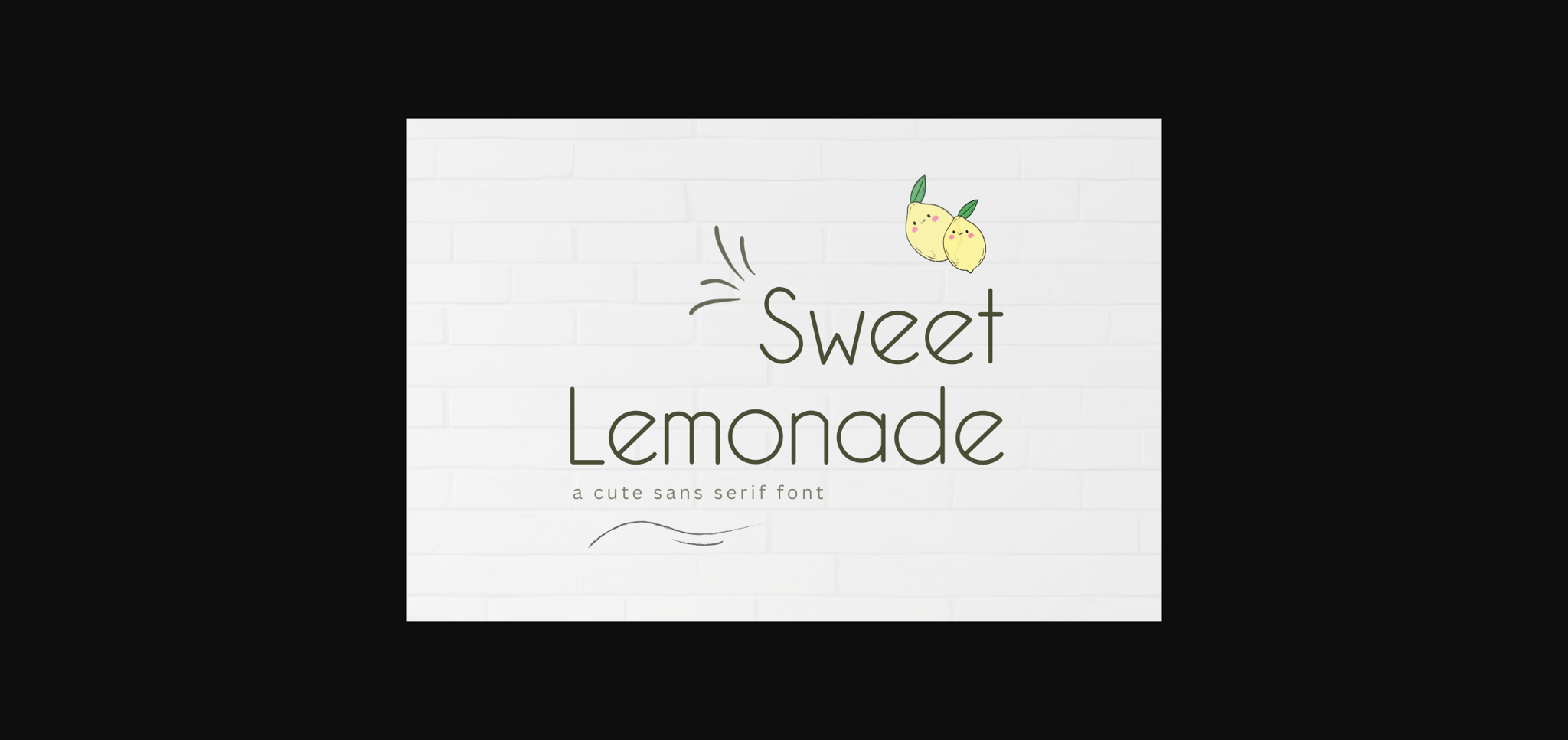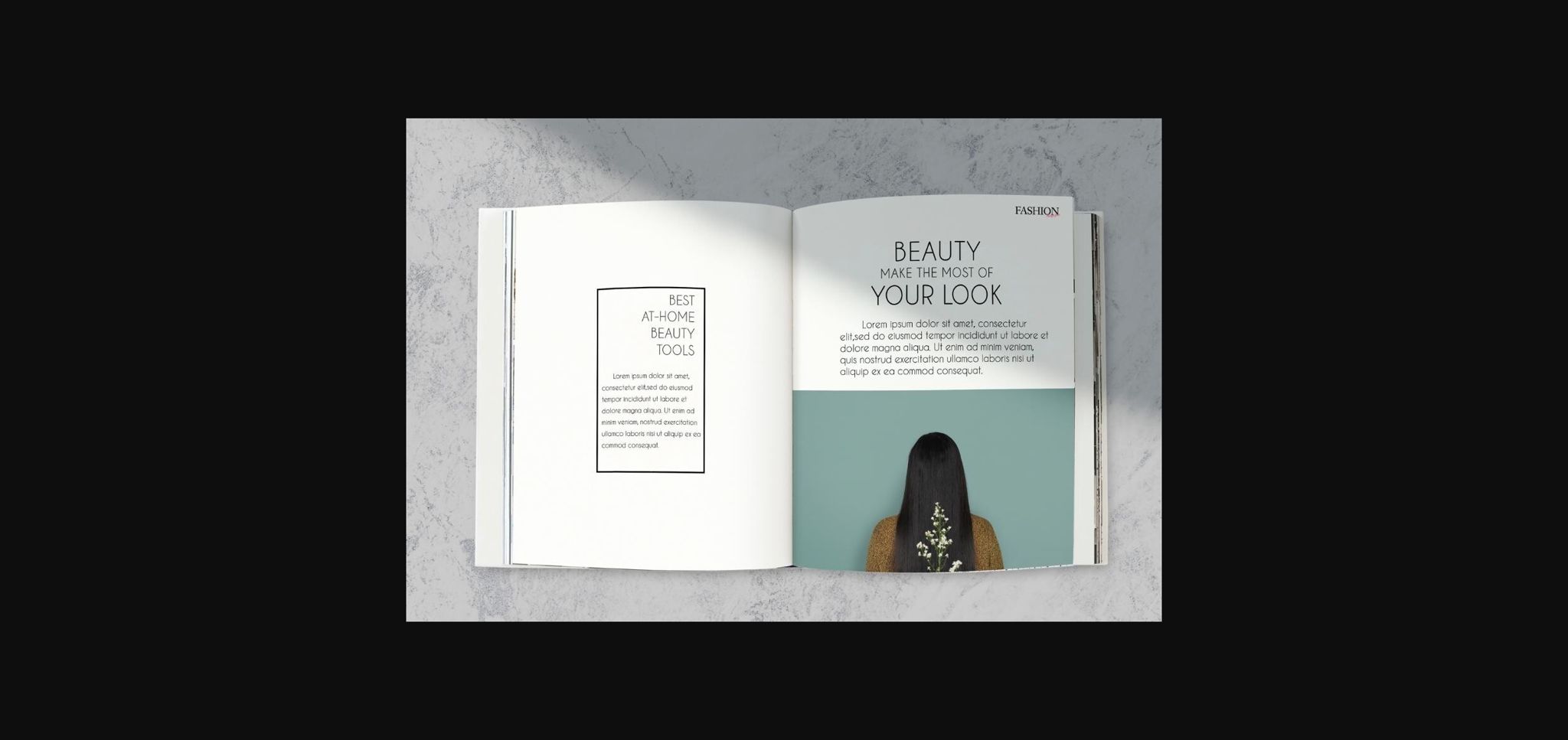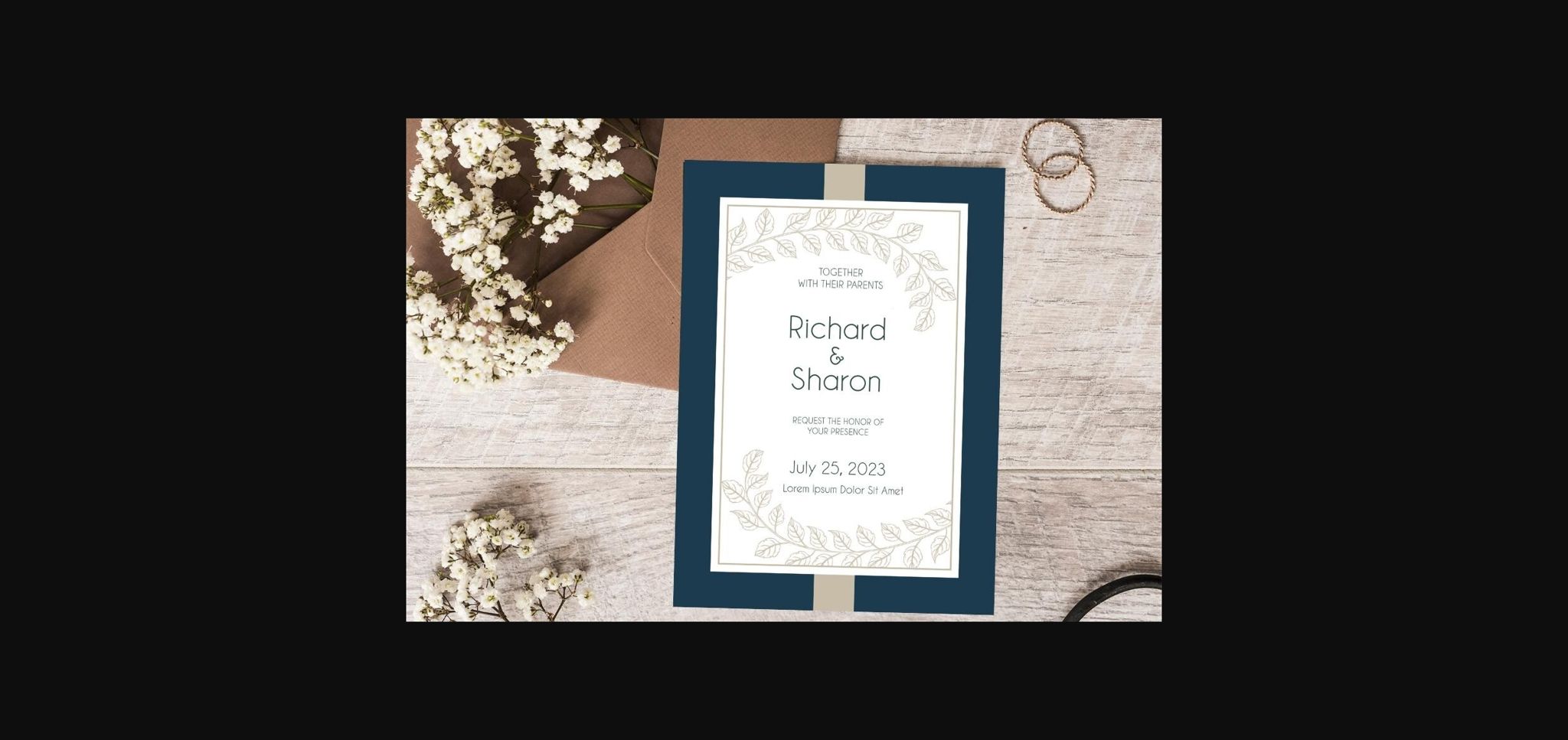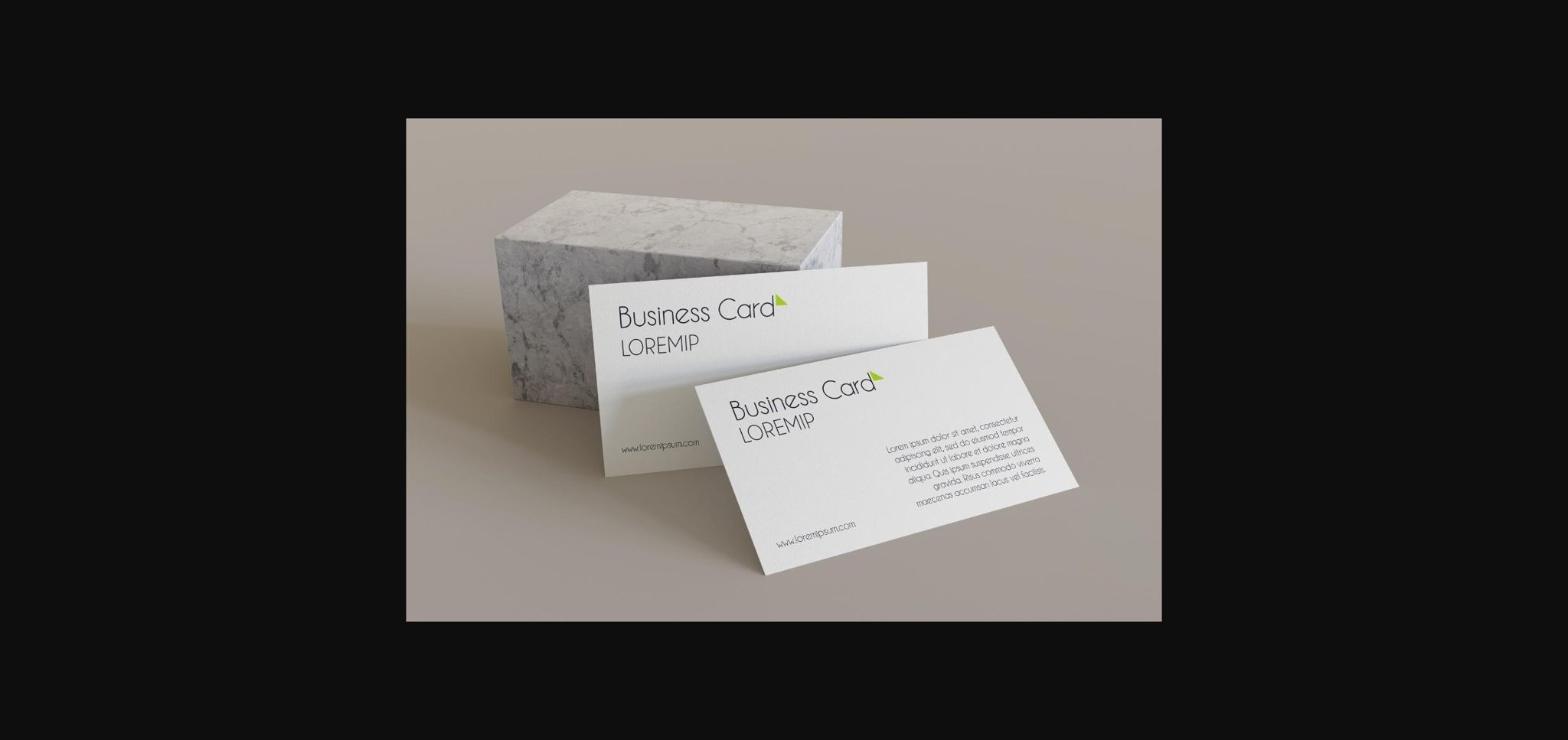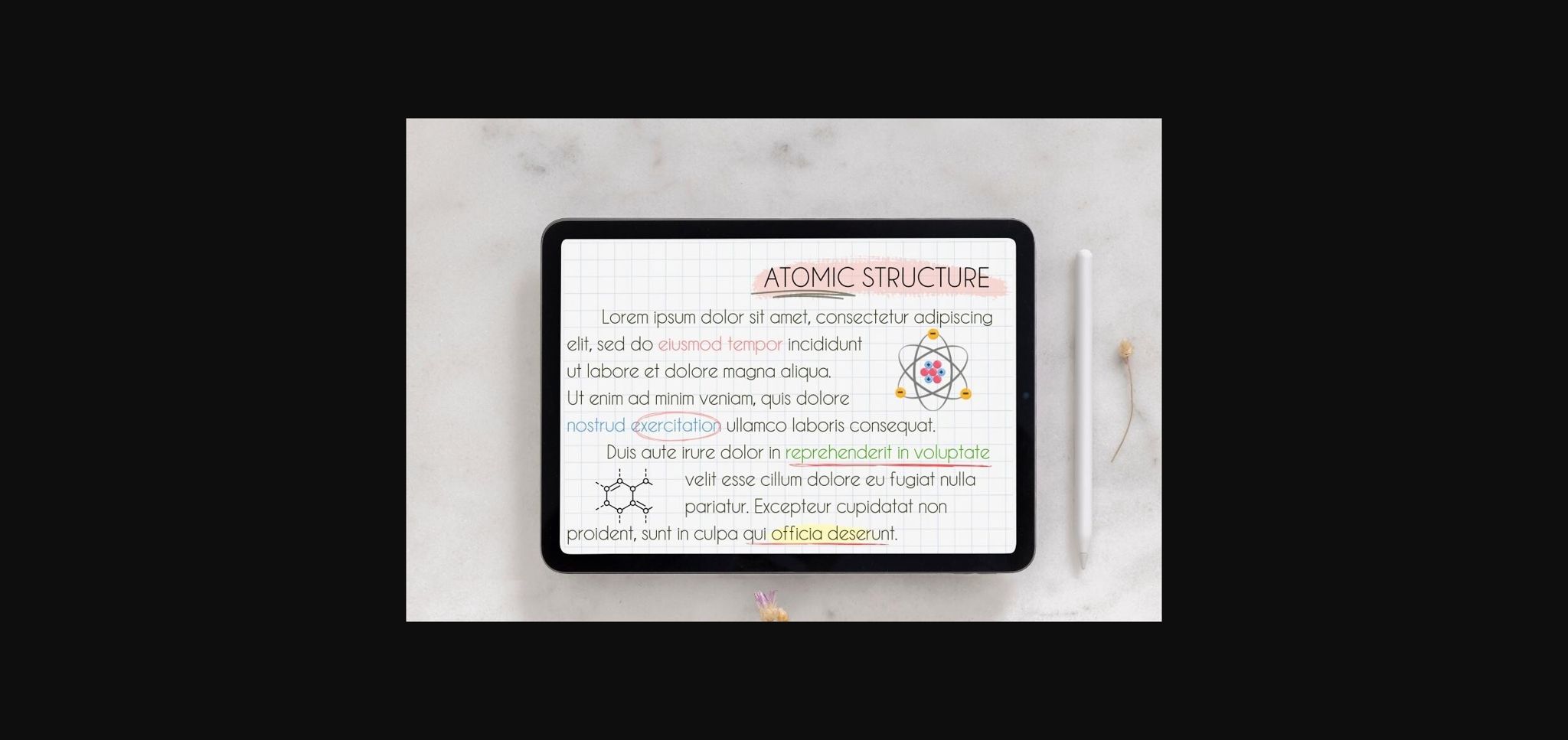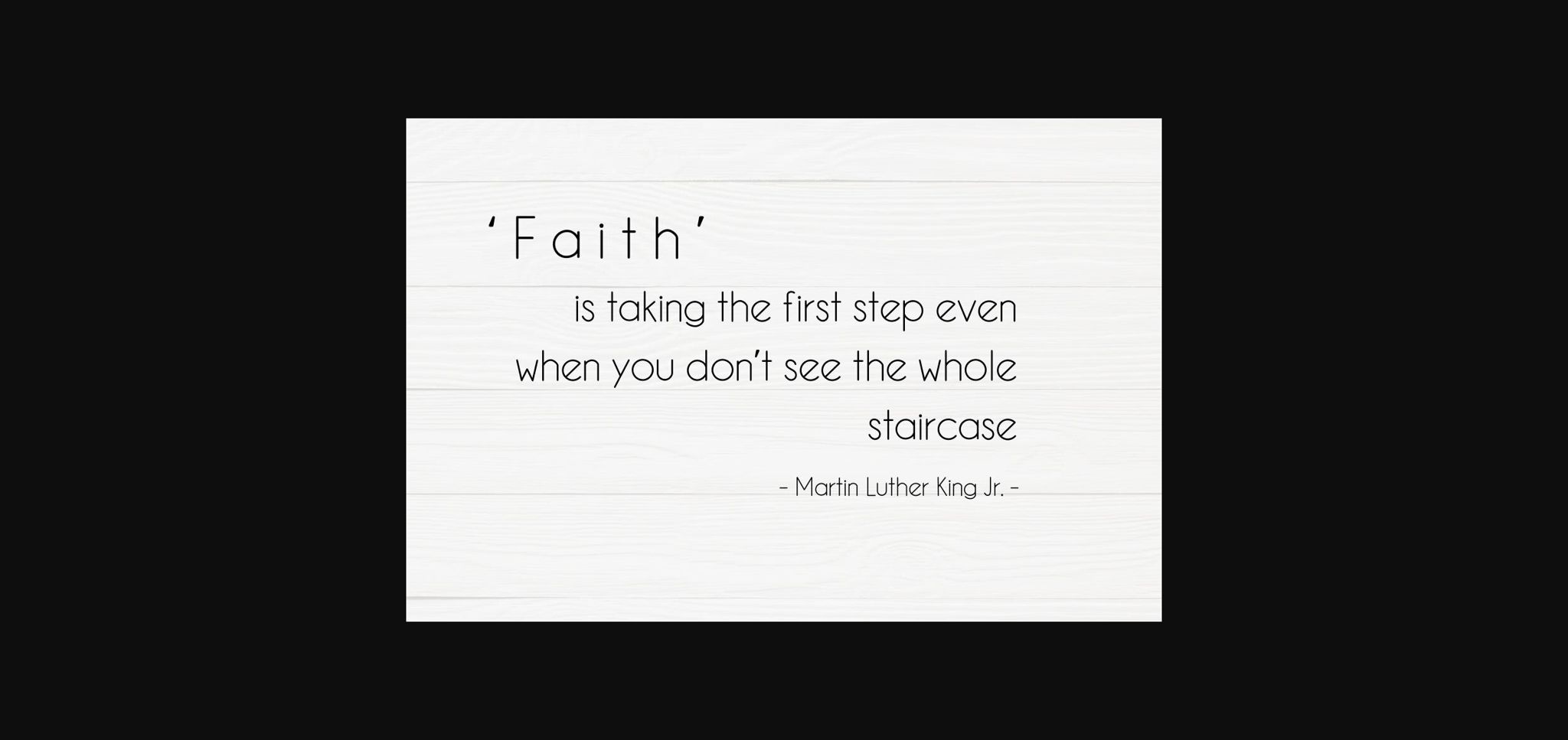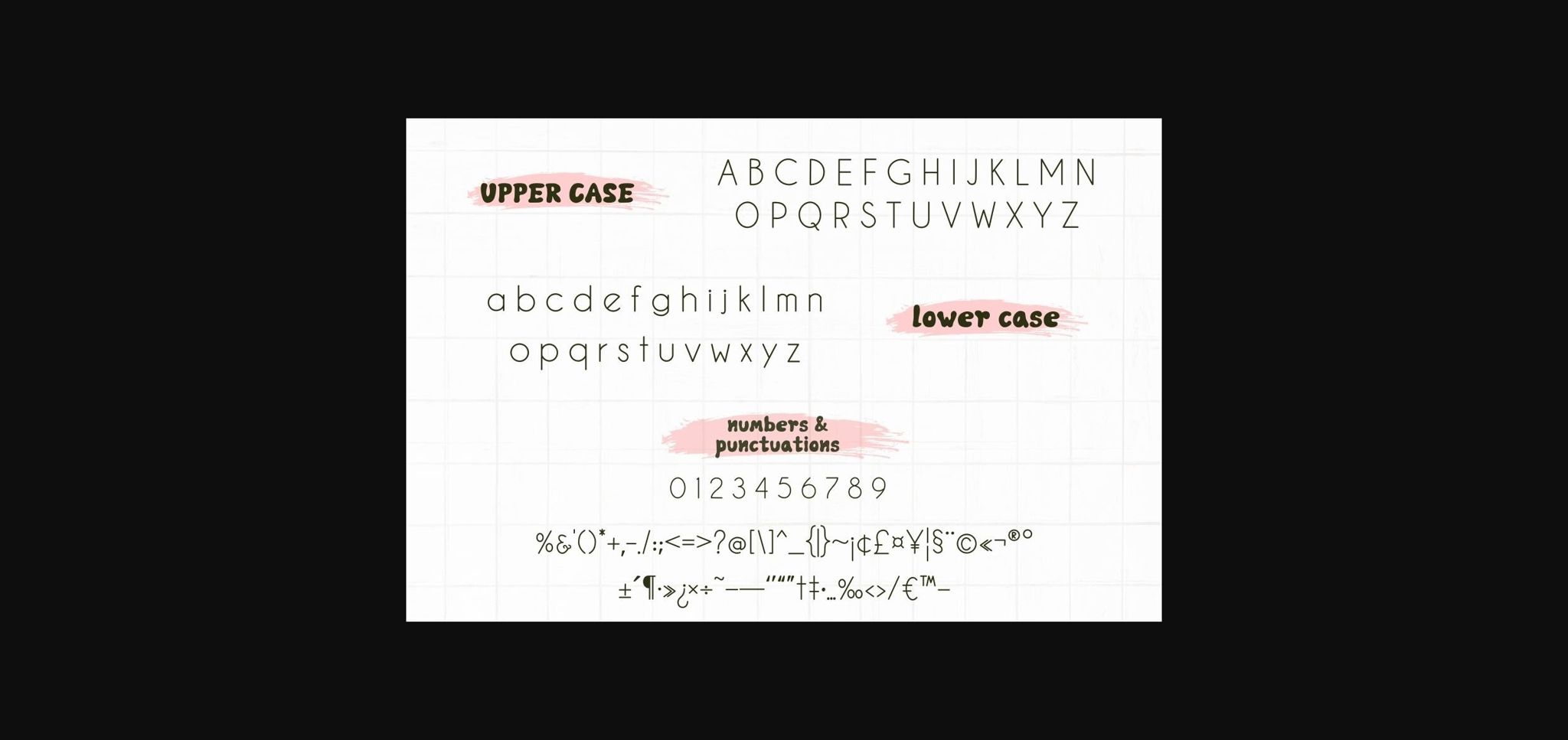
Sweet Lemonade Font
About Sweet Lemonade Font
Sweet Lemonade is a simple, neat sans serif font, perfect for digital note-taking. You can use this font in various projects – Procreate, blog posts, logos, branding, digital planner, invitations, greeting cards, planners, photo albums, decorations and much more.